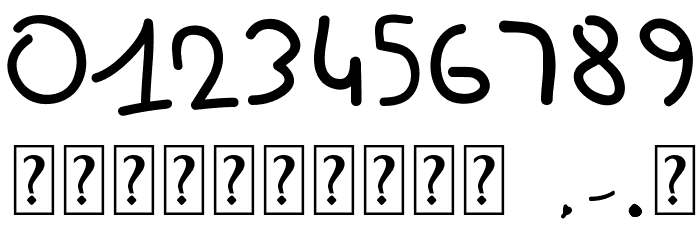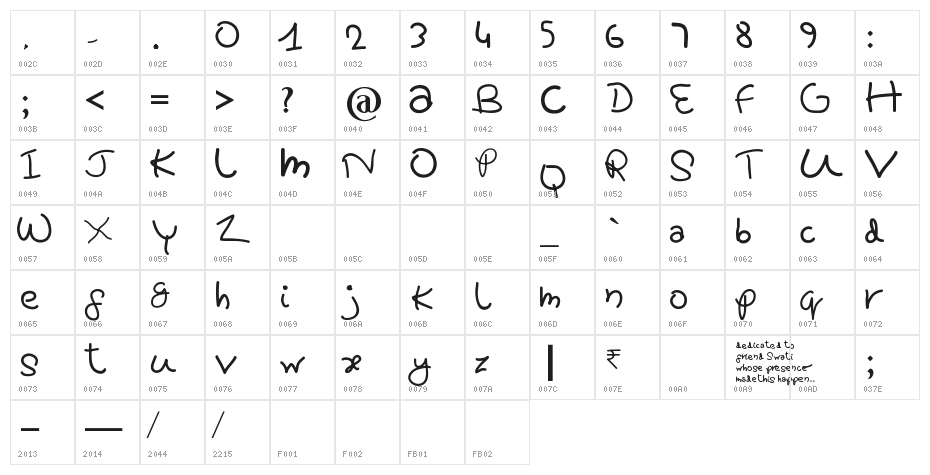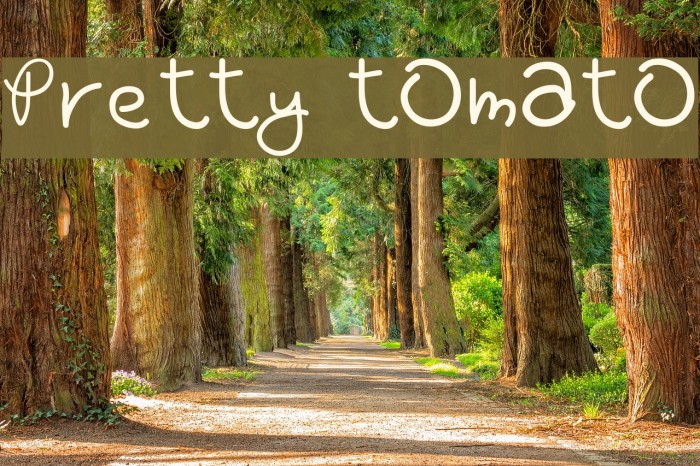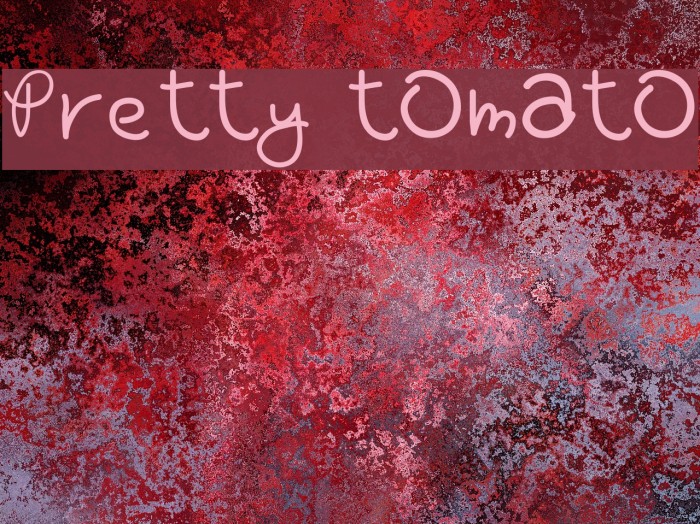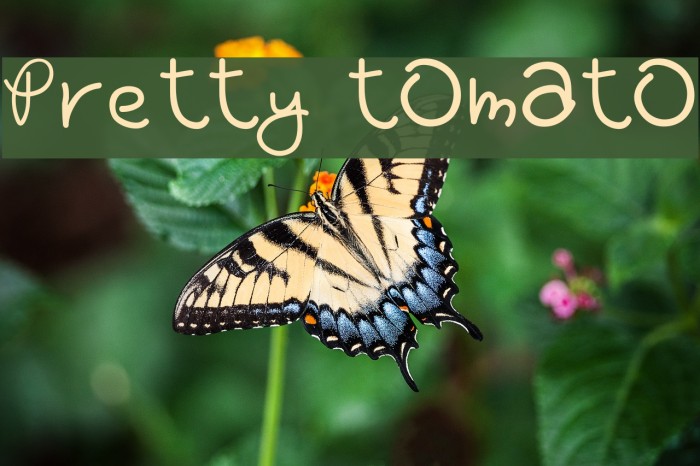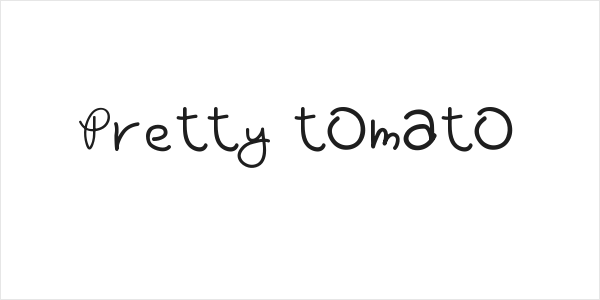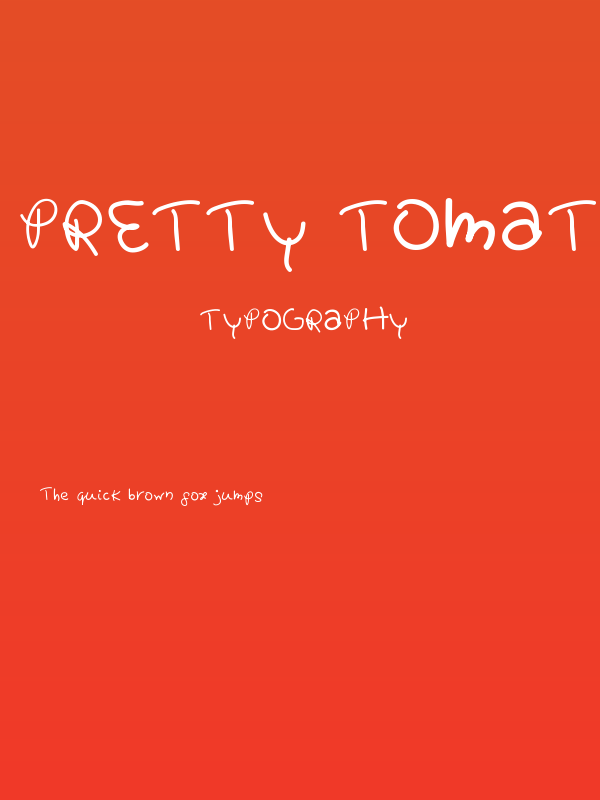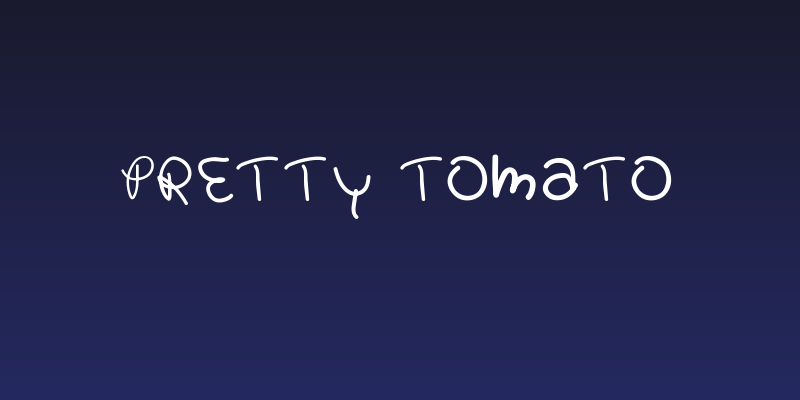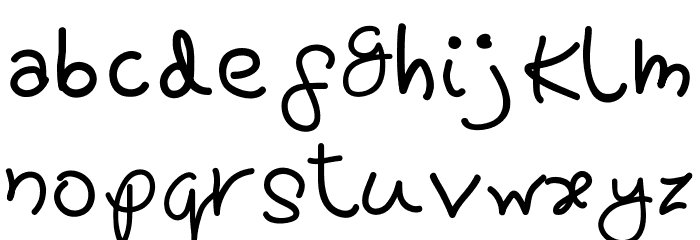
Pretty tOmAtO Font
Pretty tOmAtO Description
This playful and whimsical font features a handwritten style with a casual and friendly appearance. The characters are slightly uneven, adding to its charm and informal feel. The uppercase letters are bold and rounded, while the lowercase letters maintain a consistent flow with some unique loops and curves. Numbers are clear and easy to read, matching the overall playful theme. The special characters are creatively designed, fitting seamlessly with the rest of the font. This font is perfect for projects that require a personal touch or a fun, lighthearted vibe.
| Proposed Projects | Ideal for children's books, greeting cards, playful branding, and casual invitations. |